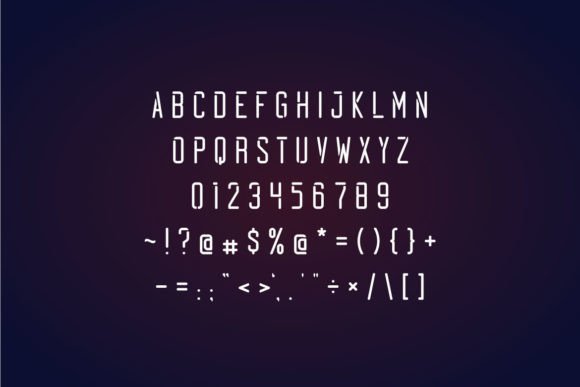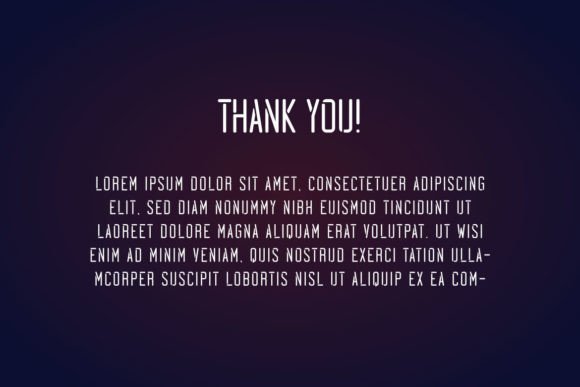
Introduction to Quarks Font
Quarks is a modern, clean, and eye-catching display font ideal for posters, cards, book titles, headlines, news, banners, flyers, stationery, and many more.
Key Features of Quarks Font
Why Choose Quarks Font?
Quarks Font offers exceptional quality and versatility, making it a valuable addition to your design toolkit. Whether you’re creating for personal projects or commercial use, Quarks Font delivers professional results.